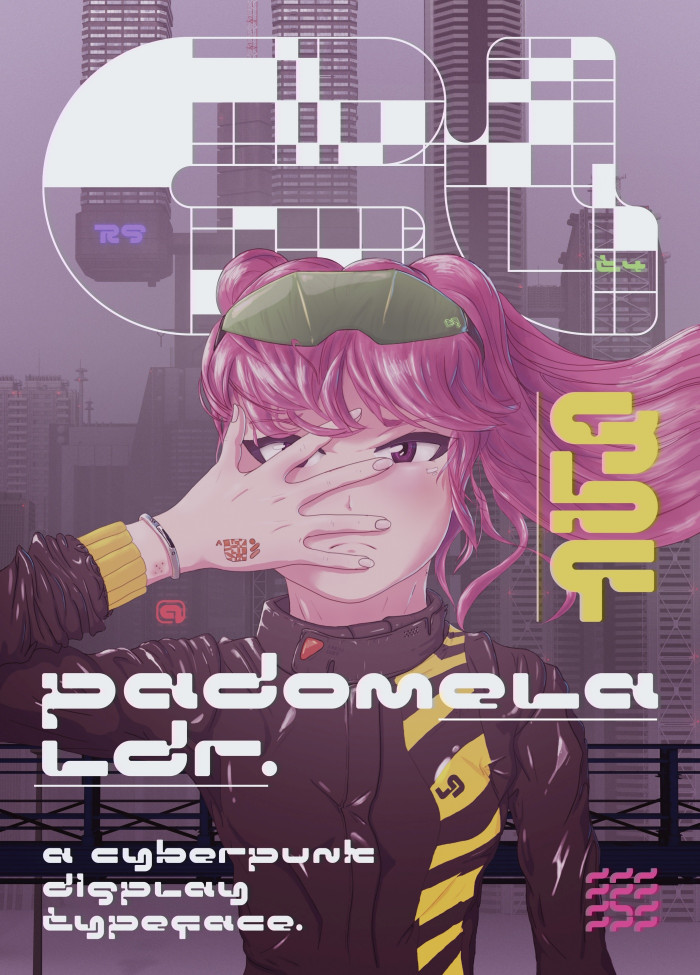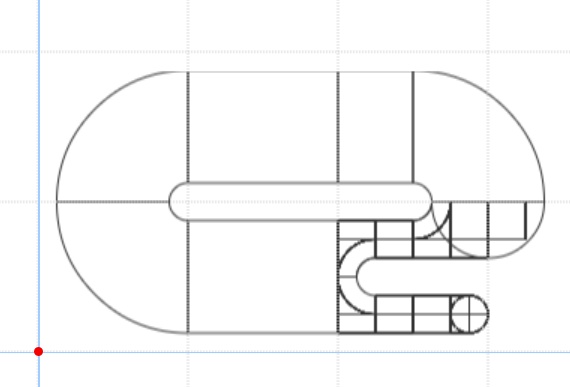
No, I didn't spend more time on the sample image ;)
cool stuff
Love it.
I was waiting for a genuine cyberfont, and here it is. I love it. Great entry and good luck.
There are some really visually interesting choices made on the joints of each letter.
Good consistency, even with symbols and accented characters.
Was it a stylistic choice to make the smaller curves on the e, 2, 5, 6, and 9 more oblong? Simple composites and nudging can make it fully circular.
Amazing font and sample!
Beautiful work, love the width of the characters and the cuts that echo the shapes of the letters.
The futuristic type seems to be your home turf, having created so many excellent fonts in the past (Sector 017, Critical Mass LDR, Synthek LDR, just to name a few). Padomela LDR is no exception. It is well designed; the rounded letters have a cute appearance. Very pretty demo poster. 10/10
@elmoyenique - "cyber" is back in fashion, eh?
@geneus1 - thanks a lot, Gene. I believe consistency is 25% the success. The rounding was a conscious choice, yes, but I kind of loved it as soon as I tried it out. I was like - "yep, it has to be done that way". Digits received a bit of a special treatment, they diverge a little bit from the rest. I don't even know how could I make their bowls fully circular in a 2 brick high grid haha. That's beyond my skill. See attachment.
@four - it's all about them cuts!
@Frodo7 - I appreciate that a ton. Your words mean a lot to me. Soft/cute yet still hardcore was the goal.
Full res sample pic. And if anyone's wondering, her name isn't "Padomela", that is just an abstract word that sort of fits, and showcases the letterforms nicely. Always remeber to feature your best letters in the name of the font, lol
This was my favorite of the Future competition.
No one even has created a clone, a true testament to excellence!